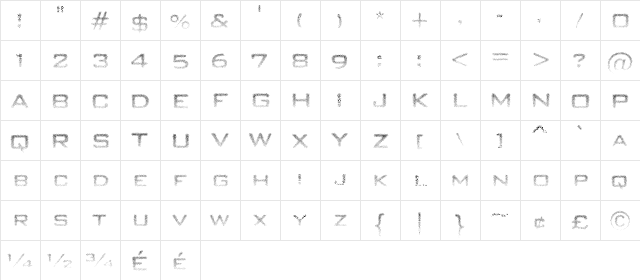
Unity Dances Regular
| Designer | S. John Ross |
Design Context for Unity Dances Typeface
Unity Dances takes a measured approach to typography — its balanced proportions and neutral character make it a reliable workhorse for both digital and print work.